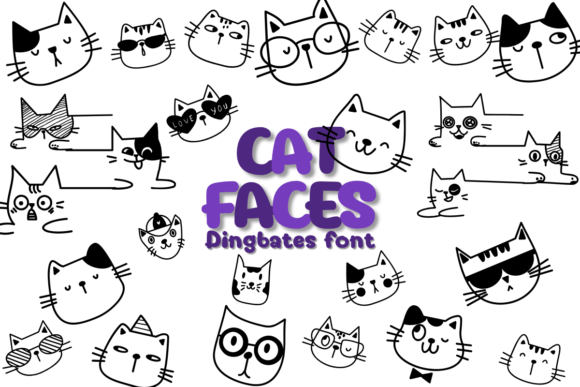
Meet Your New Feline Friend: Cat Faces Font
Have you ever been brainstorming ideas for a creative project, and suddenly, a spark of inspiration hits you? Maybe it’s a quirky logo for a new business, a custom wedding invitation, or a set of adorable DIY decorations. Whatever it is, you know it’s going to be a hit – and you’re excited to bring it to life.
When you’re looking for the perfect font to complement your creative vision, look no further than the Cat Faces Font. This delightful dingbats font features a sketch-style design, complete with adorable cat faces that are sure to capture hearts. Whether you’re a seasoned designer or a crafty hobbyist, the Cat Faces Font is a valuable addition to your toolkit, offering endless possibilities for enhancing your projects.
Cat Faces Font Key Features
- Unique Character Set: The Cat Faces Font includes a wide range of cat-inspired emojis and characters, making it perfect for cat lovers and designers looking to add a playful touch to their work.
- Customizability: The font is fully customizable, allowing users to adjust the color, size, and style of the cat faces to suit their design needs.
Designer Review: Cat Faces Font
Overall, I think the Cat Faces Font is a fun and quirky addition to any design project. ✨ It’s perfect for cat lovers and those looking to add a playful touch to their branding or social media content. The font’s whimsical nature and varied character sets make it easy to use in a variety of contexts.
Here are some of the things I like about the Cat Faces Font:
- ✨ Its unique and recognizable design style makes it stand out in crowded design spaces.
- ✨ The font’s varied character set allows for a lot of creative expression and experimentation.
- ✨ It’s a great way to add a lighthearted and approachable tone to design projects.
- ⚠️ The font may be too playful or childish for more formal or professional design projects.
- ⚠️ Some users may find the font difficult to read at smaller font sizes due to its irregular shape and size.
- ⚠️ The font’s limited versatility means it may not be suitable for projects that require a more neutral or serious tone.
Overall, I think the Cat Faces Font is a fun and creative option for designers looking to add some personality to their work. Just be mindful of the potential limitations and use it thoughtfully to achieve the desired effect.
The Cat Faces font is ideal for:
- Children’s books and educational materials.
- Playful advertising and marketing campaigns.
- Fun and creative social media graphics.
Remember to use the font in moderation to avoid overwhelming the design.